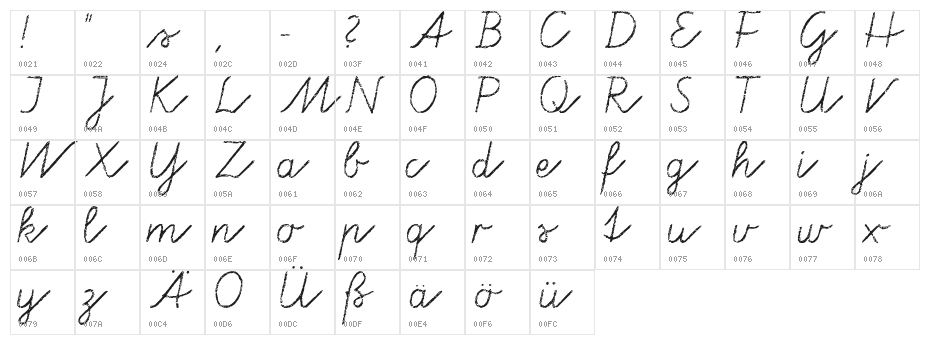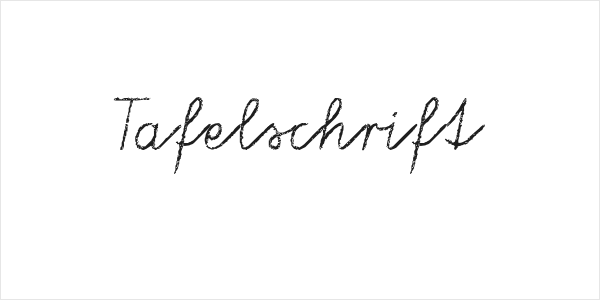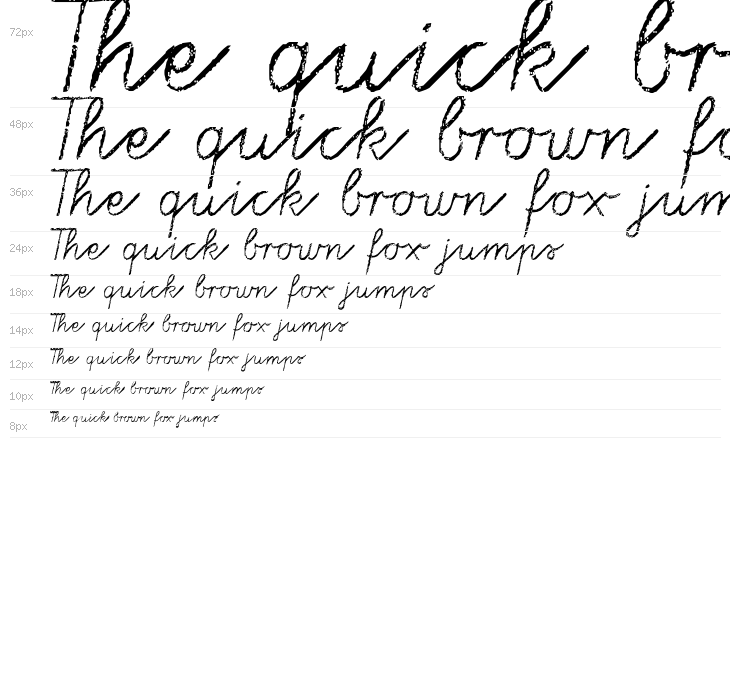
Tafelschrift Font
| Caso d'uso | Headlines, Logos, Invitations |
| Progetti proposti | Ideal for educational materials, children's books, or any project seeking a nostalgic, school-themed aesthetic. |